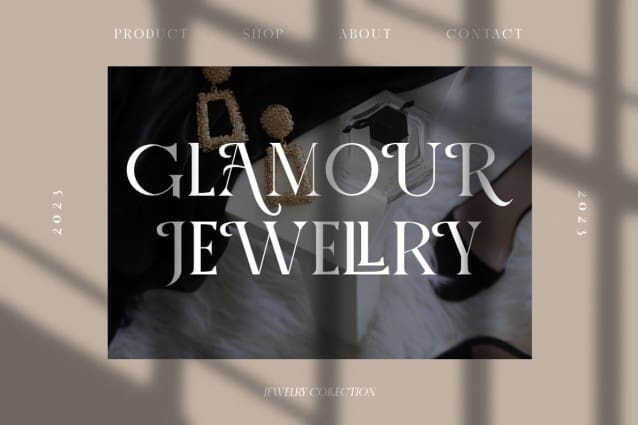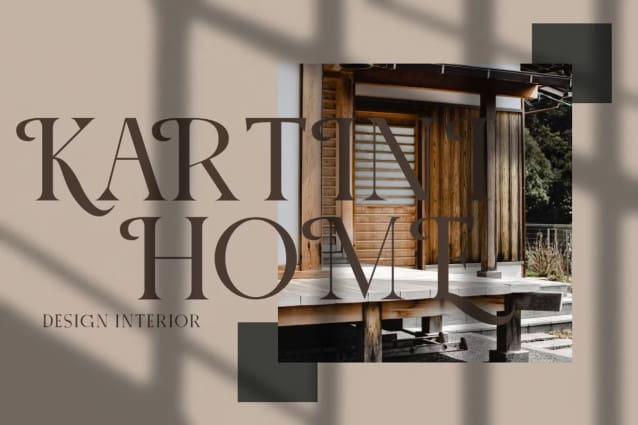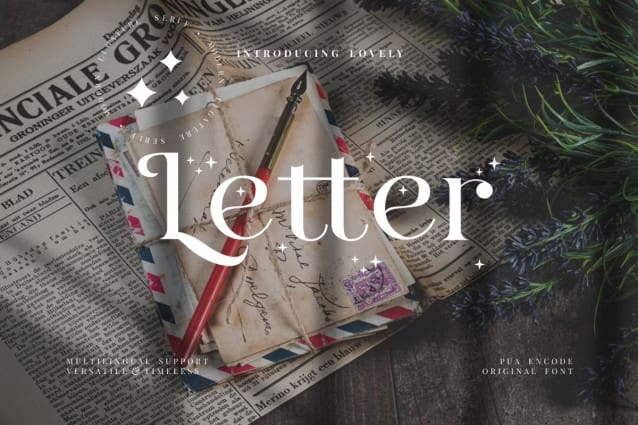
Letter Serif Font
Letter Serif Font – Stylish Serif Font , from FinTypeStudio, suitable for any projects such as: logos, branding projects, homeware designs, product packaging, mugs, quotes, posters, shopping bags, t-shirts, book covers, name card, invitation cards, greeting cards, label, photography, watermark, special events, and all your other lovely projects that need a beautiful serif taste.